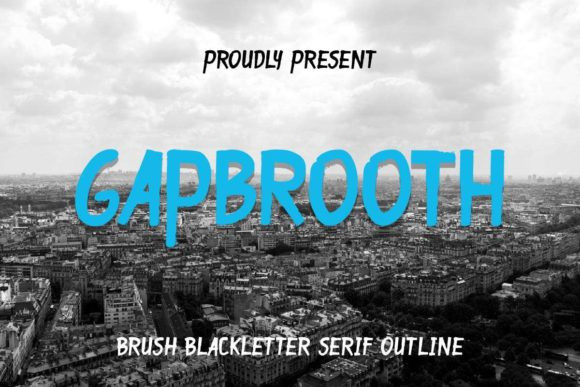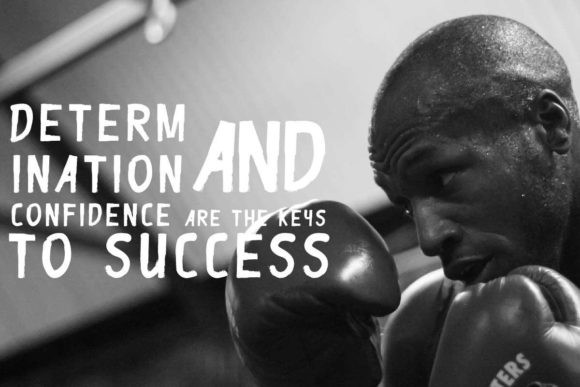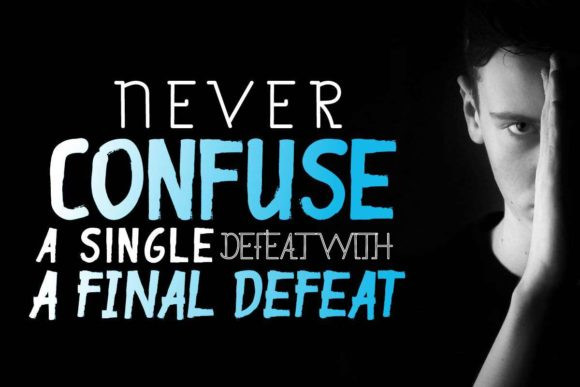
Gapbrooth Font
Gapbrooth is a cute and casual handwritten font with an incredibly friendly feel. Whether you’re looking for fonts for Instagram or calligraphy scripts for DIY projects, Gapbrooth will turn any creative idea into a true piece of art!